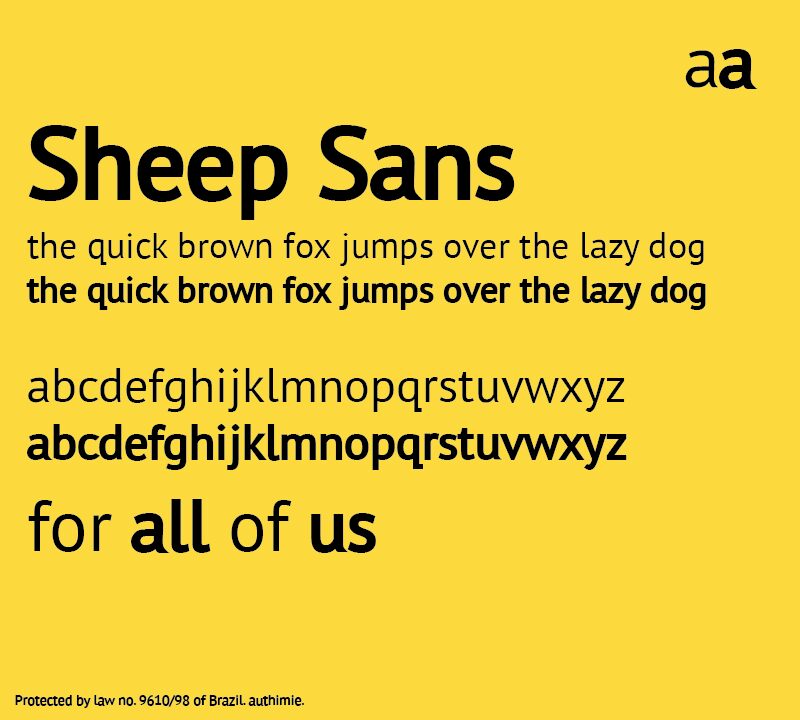
Sheep Sans Bold by Álvaro Thomáz of authimie is a free bold sans serif with broad, sturdy forms and a clean, confident contemporary silhouette. Its near-even strokes, generous inner spaces, softly rounded curves, blunt cuts, and compact joins create an approachable but substantial texture.
Designers addressing younger audiences or friendly everyday markets will find it especially useful for food packaging and casual retail identities. The lettering feels upbeat without looking childish. Its strong shapes also suit festival posters, album artwork, and editorial section openers, where the slightly quirky lowercase details can echo the simplified forms of mascots and geometric illustrations.